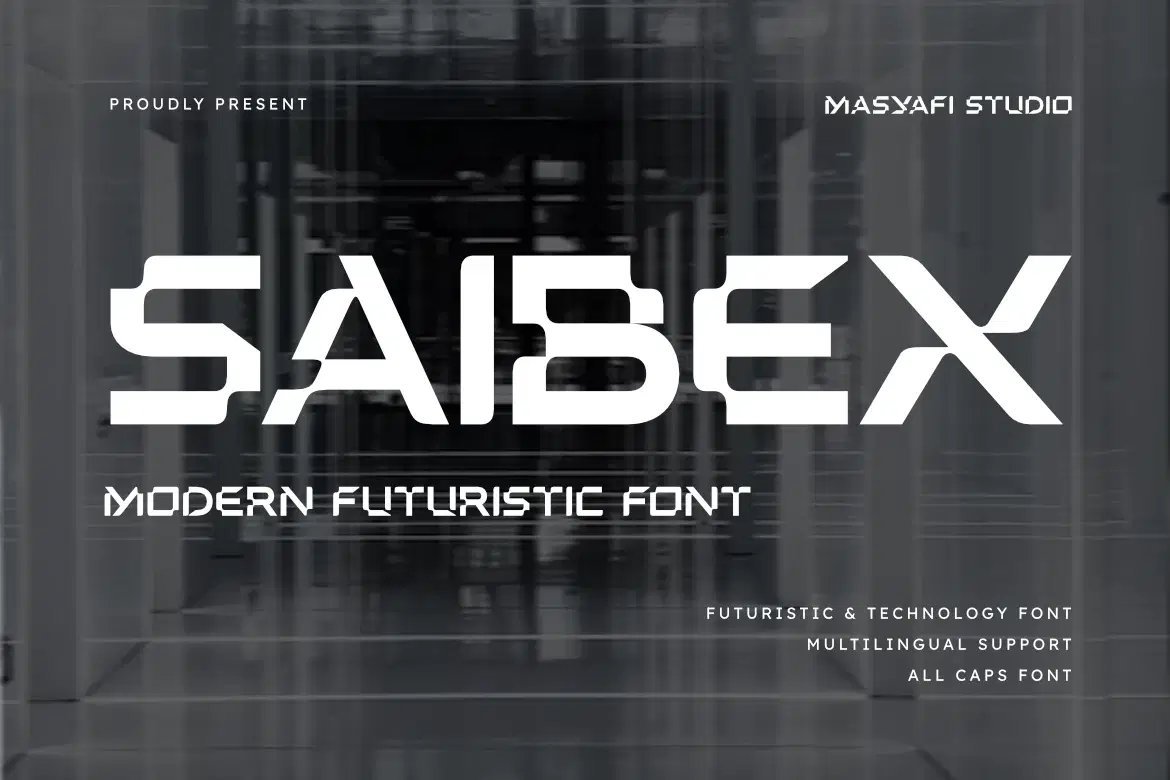
Saibex is a cutting-edge futuristic font designed for high-impact display and technology-driven projects. Characterized by its bold, geometric structure and sharp architectural lines, Saibex delivers a powerful visual presence that evokes a sense of innovation and advanced engineering.
This all-caps typeface is meticulously crafted for designers working in the gaming, automotive, and tech industries. Whether you are creating a modern logo, a sci-fi movie title, or a bold e-sports brand identity, Saibex provides the precision and strength needed to stand out in the digital age.
Main Features:
Bold & Modern Futuristic Display style.
Sharp geometric terminals for a techno feel.
All-Caps character set for maximum impact.
Comprehensive multilingual support for global projects.
Optimized for headlines, logos, and large displays.